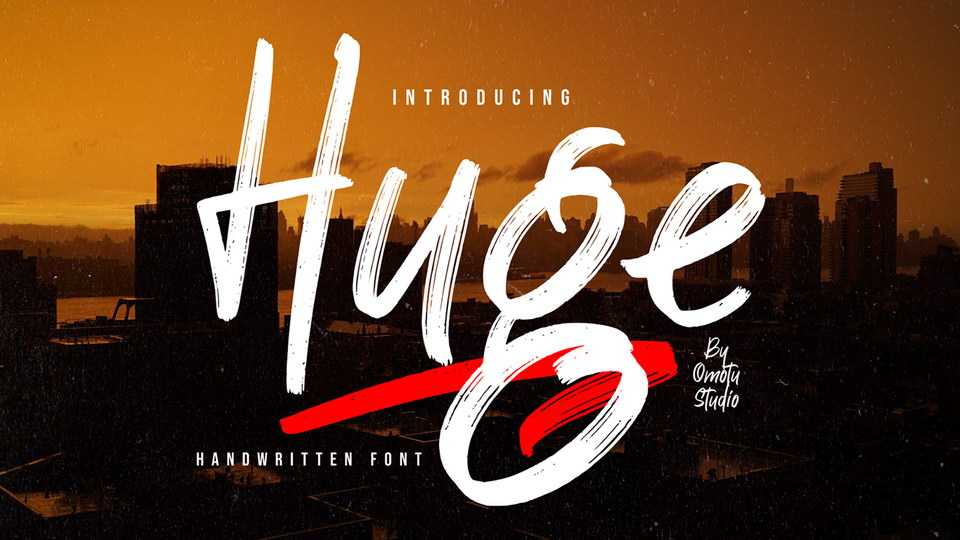
Download Huge font, a powerful handwritten brush script with a personal charm. Huge script is perfect for branding projects, homeware designs, flyers, posters, product packaging – or simply as a stylish text overlay to any background image.
Designer: Ibnu Utomo